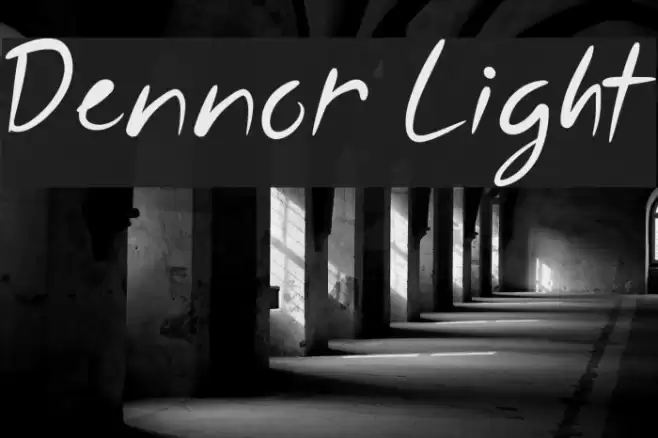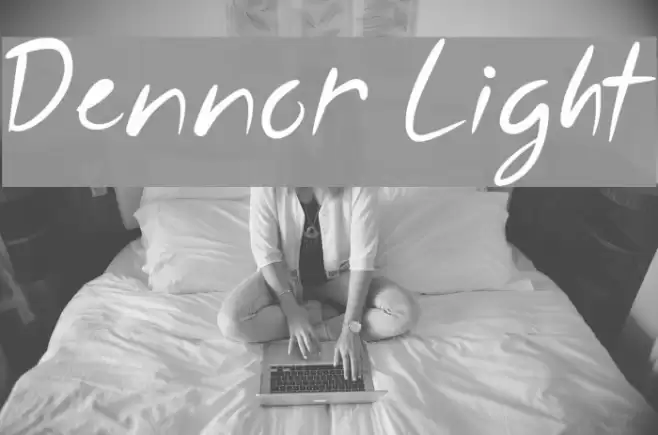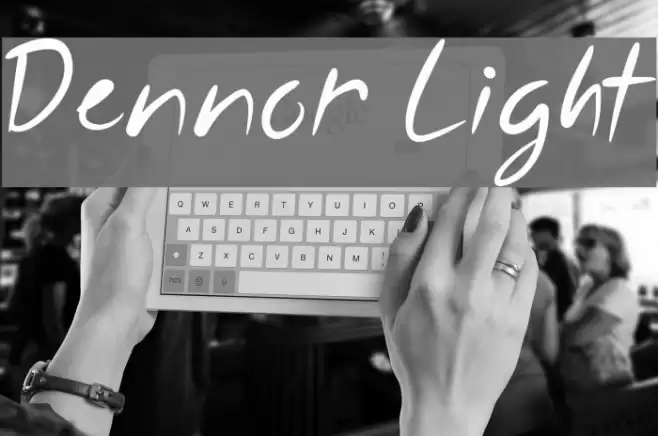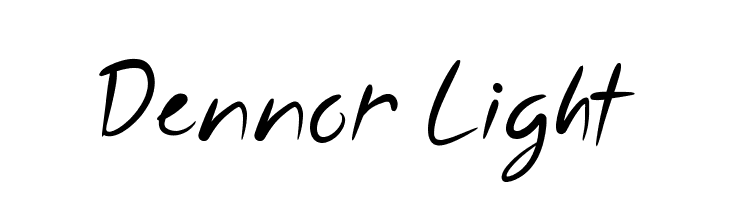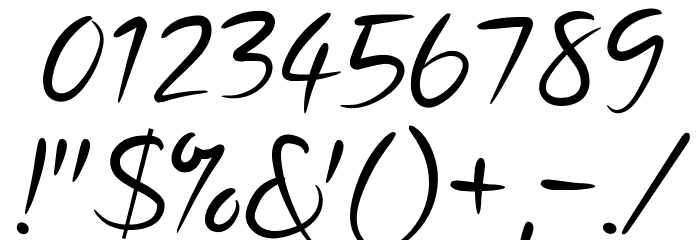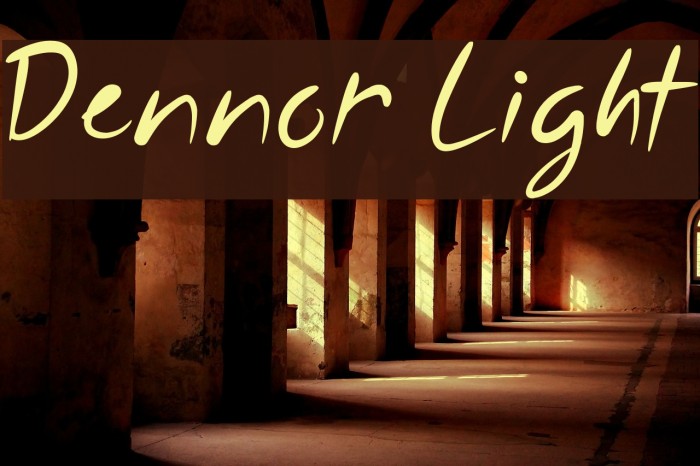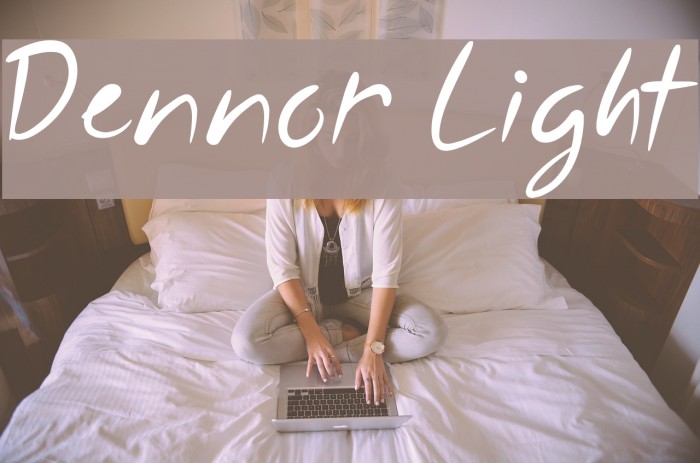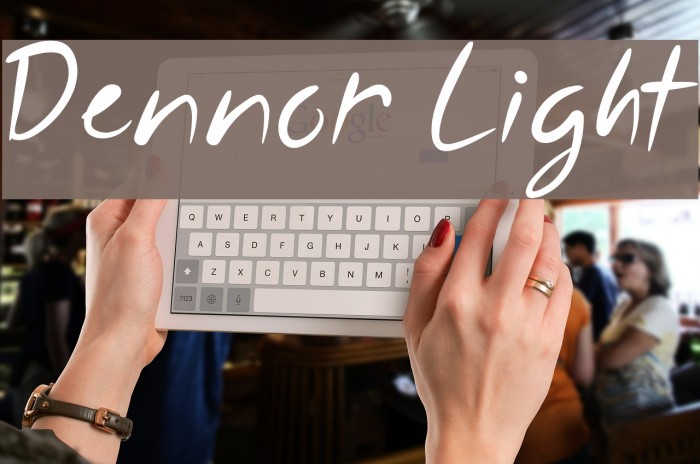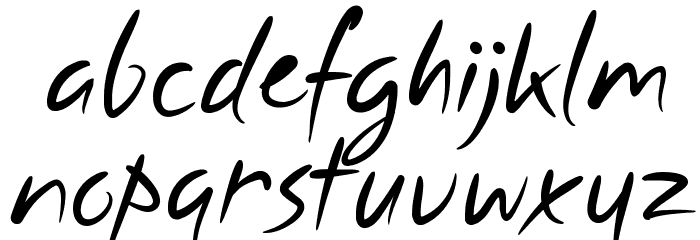
Dennor Light Font
Dennor Light Description
This font exudes a dynamic and energetic feel with its fluid, handwritten style. The characters are slightly slanted, giving an informal yet sophisticated appearance. The strokes vary in thickness, adding a lively contrast that enhances readability while maintaining an artistic flair. The uppercase letters are bold and prominent, while the lowercase letters maintain a consistent flow, making it suitable for creative projects. The numerals and special characters are designed to complement the overall style, ensuring versatility across different uses.
A dynamic, handwritten font with fluid strokes and lively contrast from Uncategorized fonts.
- Proposed Projects: Ideal for branding, invitations, greeting cards, and creative posters.
- Use Case: Logos, Headlines, Creative projects